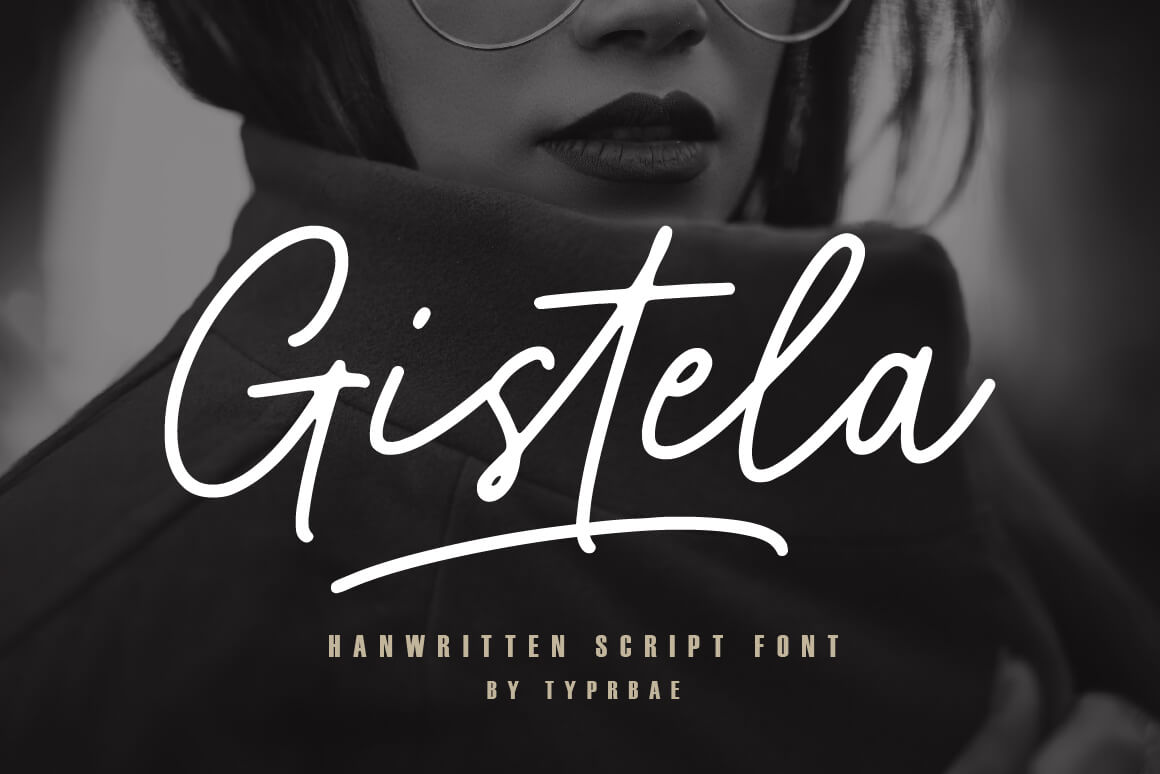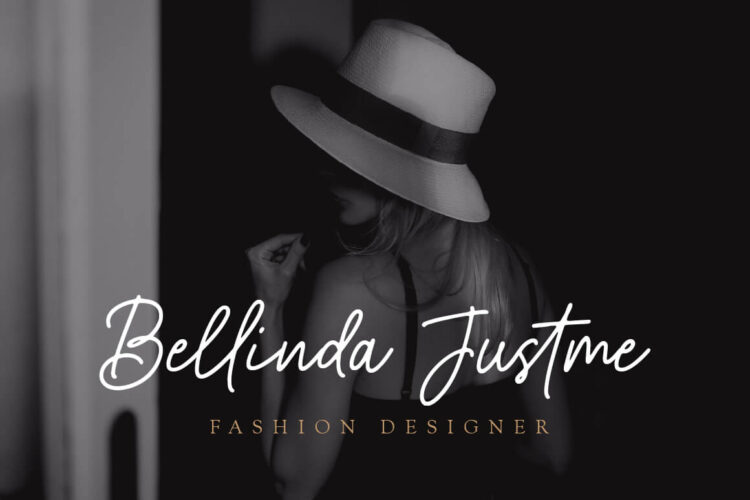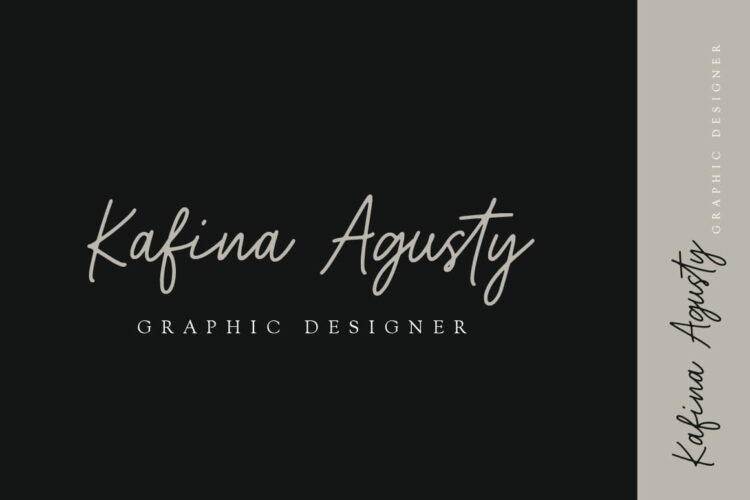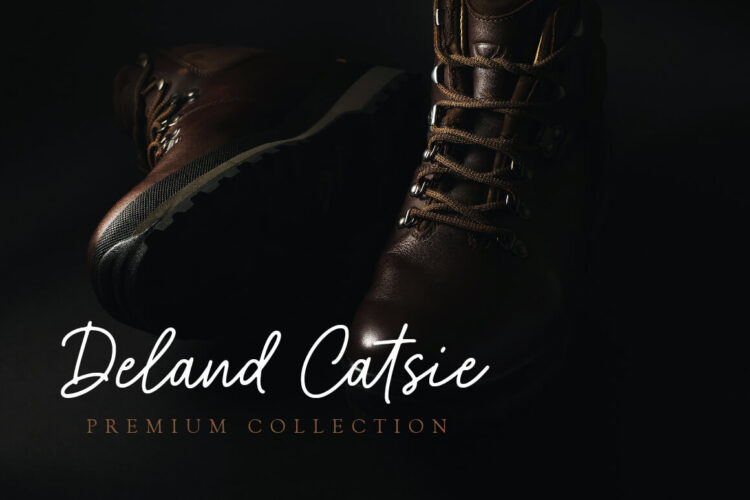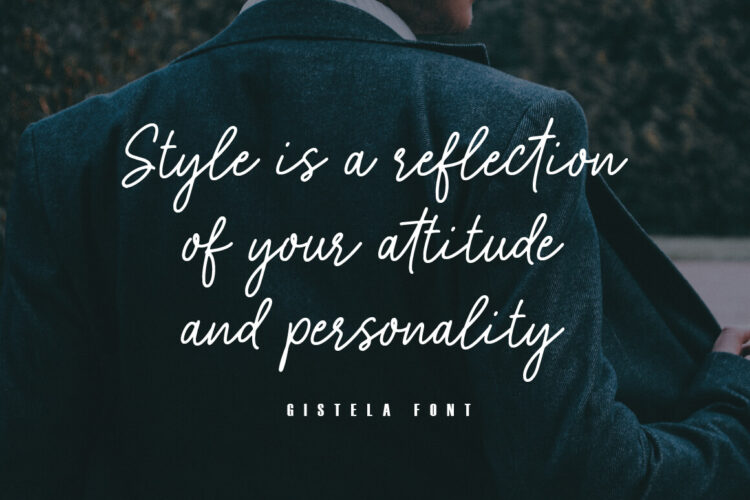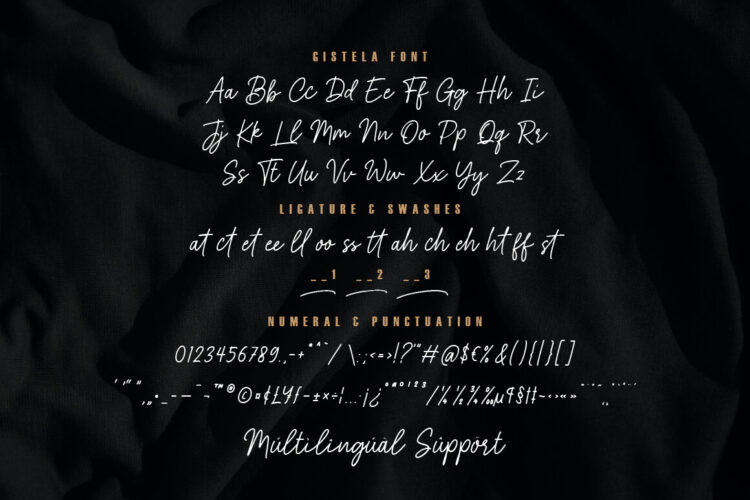
Handwritten Script Font
Gistela
Gistela is a stunning handwritten signature script font that exudes beauty and elegance. Gistela is perfect for creating luxurious branding materials, wedding invitations, greeting cards, and other projects that demand a touch of refined beauty.
• Ligature feature
• Multilingual Support